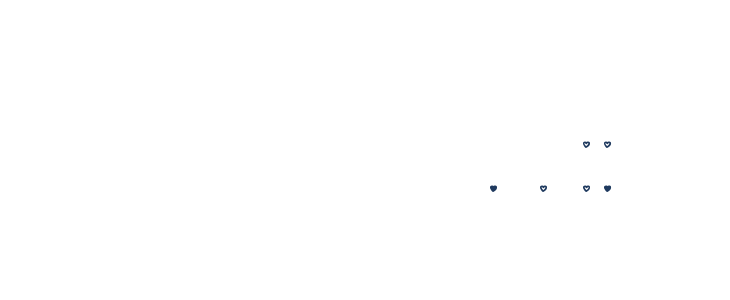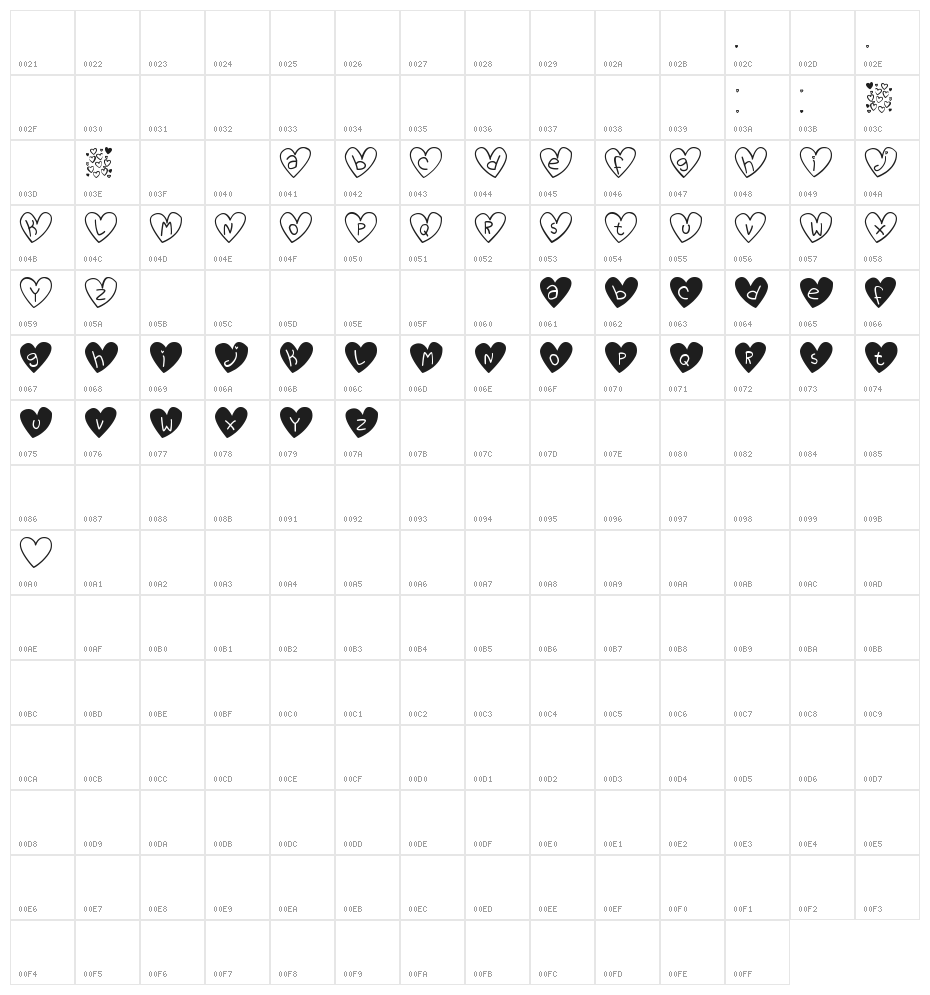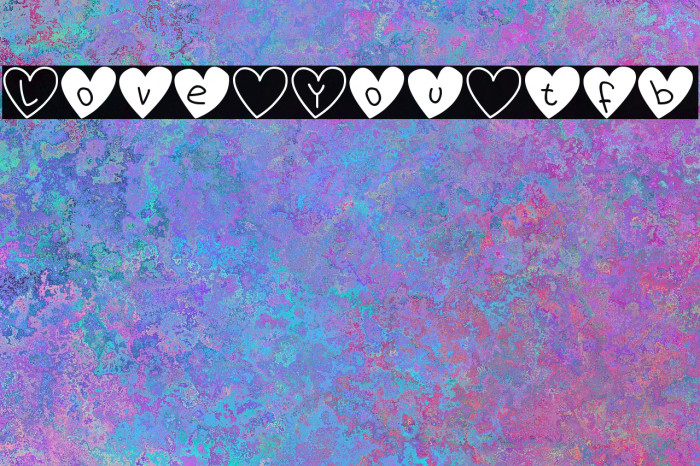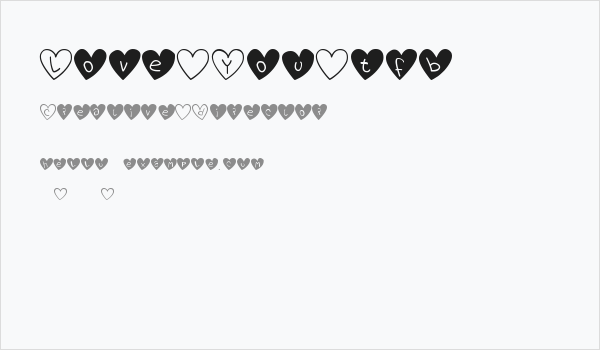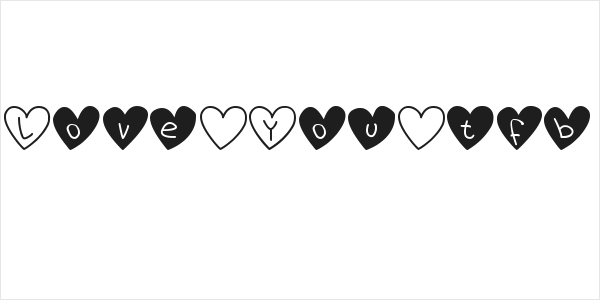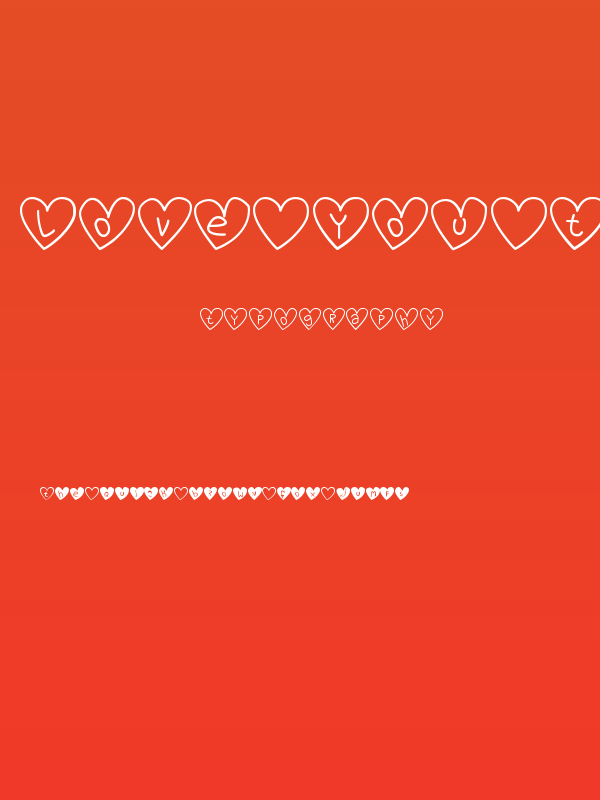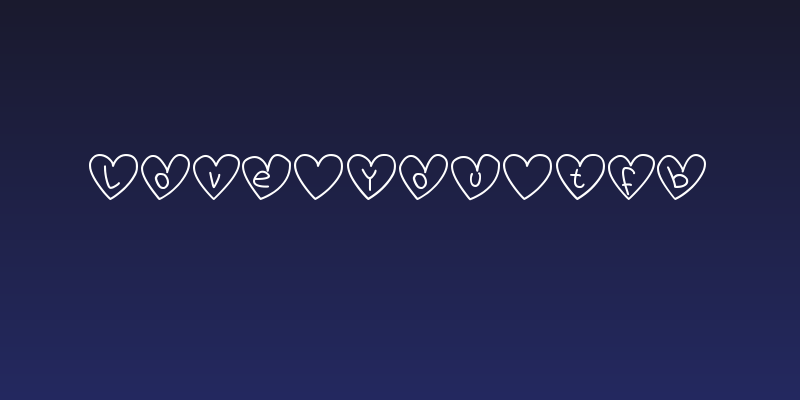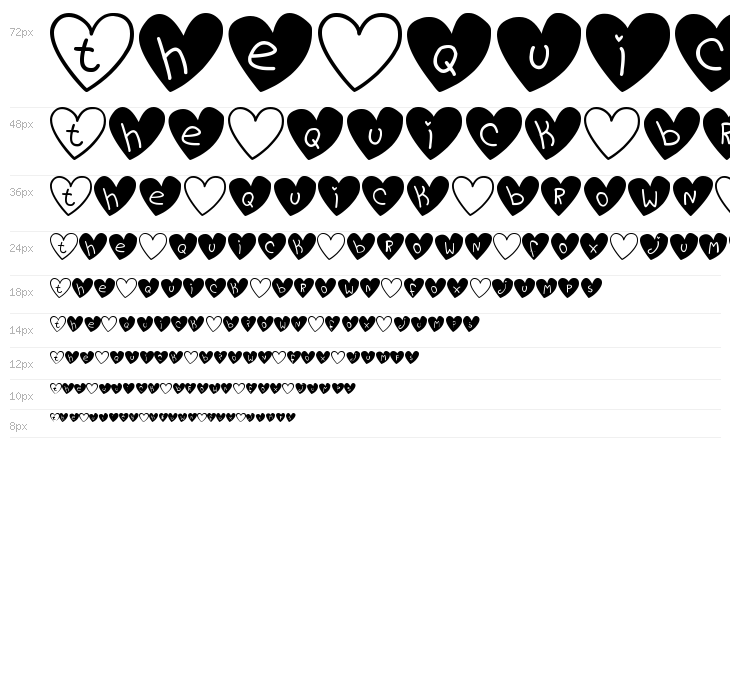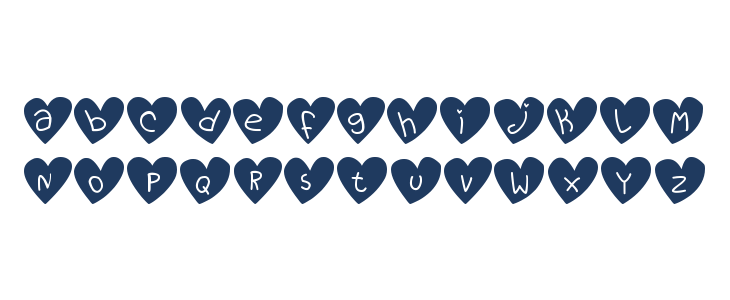
Love You tfb Font
Love You tfb Description
This playful and charming font features each letter encased within a heart shape, creating a whimsical and romantic aesthetic. The letters are simple and rounded, offering a friendly and approachable feel. The font includes both uppercase and lowercase letters, with a consistent style throughout. The heart shapes vary slightly in size to accommodate different letter widths, adding a dynamic and lively touch. This font is perfect for projects that aim to convey love, affection, or a sense of fun. The bold heart outlines enhance the visibility of the letters, making it suitable for eye-catching designs.